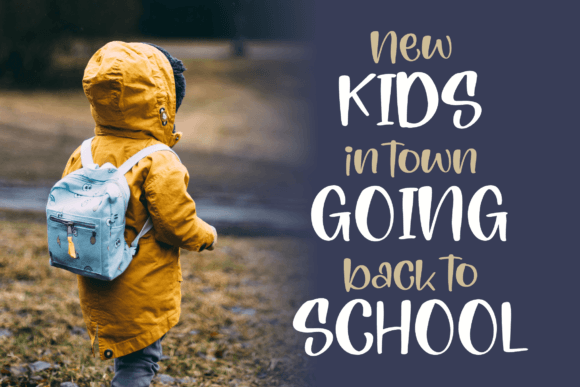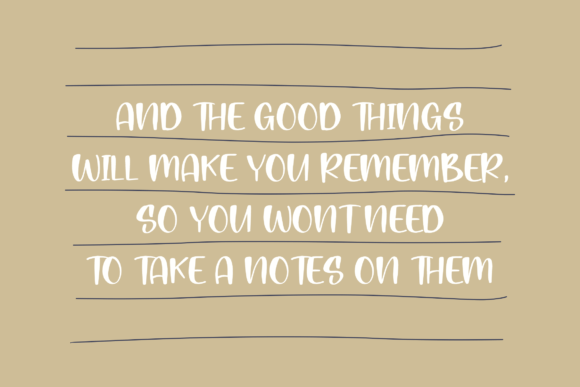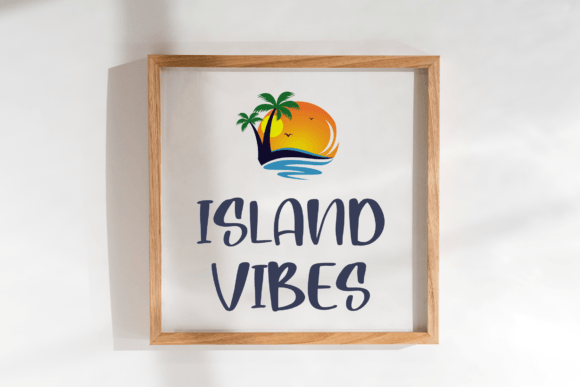
Introduction to Qwertiya Font
As a designer, you’ve probably found yourself in a creative rut, staring at a blank canvas, trying to bring a new idea to life. The words flow, the imagination sparks, and suddenly, you’re envisioning the perfect typography to match your vision. This is where the Qwertiya Font comes in – a beautiful, playful handwritten font that can elevate any project from ordinary to extraordinary.
With its high-quality design and transparent background, the Qwertiya Font is a valuable resource for designers looking to add a personal touch to their creative projects. Whether you’re working on a logo, branding project, or product packaging, this font is sure to bring a unique and charming aesthetic to your design. And the best part? It’s available for free download, making it an excellent addition to your design arsenal.
From homeware designs to photography, the Qwertiya Font is a versatile design resource that can be used in a wide range of creative projects. Its beauty lies in its simplicity, making it a great choice for designers who want to add a touch of elegance without overwhelming their audience.
Key Features of Qwertiya Font
- High-quality, unique font design suitable for creative projects requiring a distinctive touch.
- Comes in a transparent background version, ideal for use on images or videos with complex backgrounds.
- Includes a comprehensive set of characters, including Latin, Cyrillic, and Greek alphabets, making it suitable for multilingual projects.
- Perfect for use in creative projects such as typography-based art, logos, and graphics, where a unique font style is essential.
Honest Review: Qwertiya Font
I recently stumbled upon the Qwertiya Font while working on a creative project and I’m excited to share my thoughts on this design resource.
- High-quality typography: The Qwertiya Font boasts beautiful, smooth lines and a professional look that elevates any design project.
- Transparent background: This feature is incredibly useful for designers who want to use the font on transparent backgrounds or with complex designs.
- Limited character set: The Qwertiya Font has a relatively small character set, which may not be suitable for projects that require a wide range of special characters.
- No variations: Unlike some other fonts, the Qwertiya Font doesn’t come in different weights or styles, which can be a limitation for designers who want more flexibility.
Overall, I’m impressed with the Qwertiya Font’s quality and usability. While it may not be perfect, it’s a great addition to any designer’s toolkit, especially for free.
Tips for Getting the Most Out of Qwertiya Font
Use the Qwertiya Font in conjunction with a transparent background to create a modern and sleek design. Experiment with different font sizes and colors to add visual interest to your design. This free download is a valuable design resource that can help take your creative project to the next level.
The Qwertiya Font is ideal for use in a variety of creative projects, including presentations, documents, graphics, and more. Its high-quality design makes it perfect for use in professional settings, while its free download makes it accessible to designers of all levels.